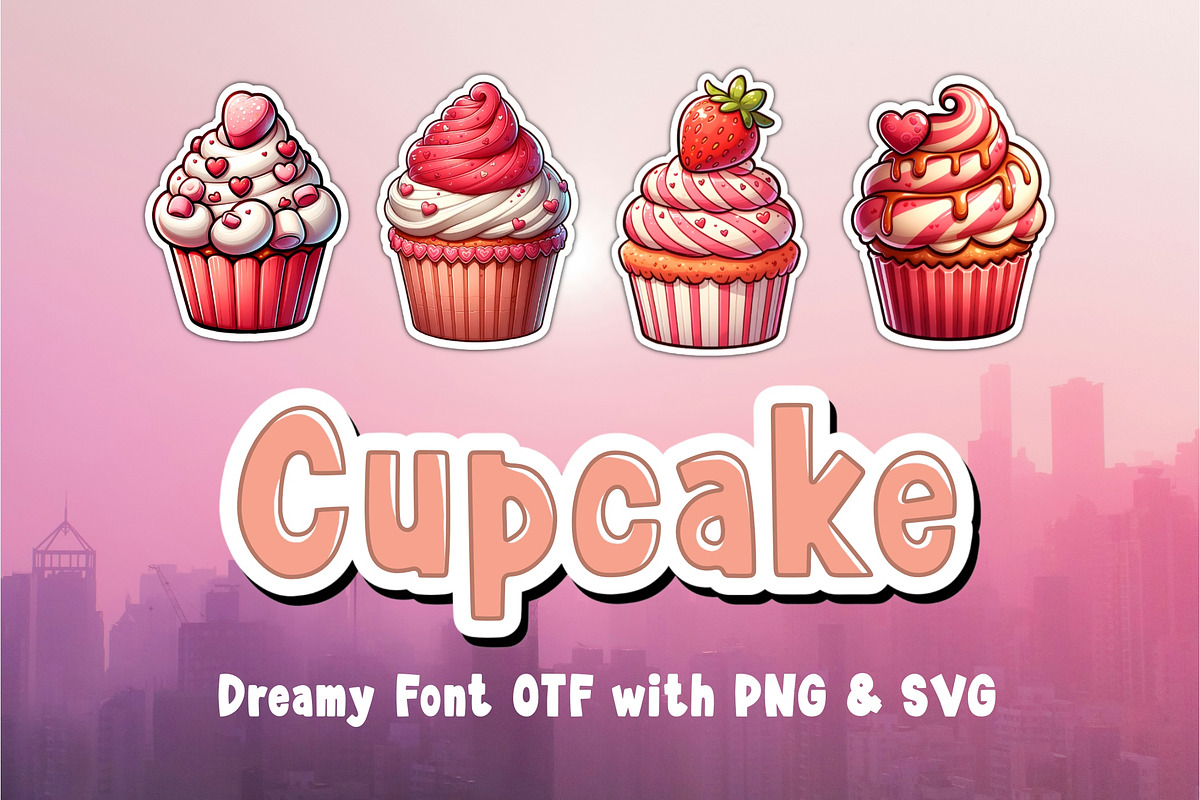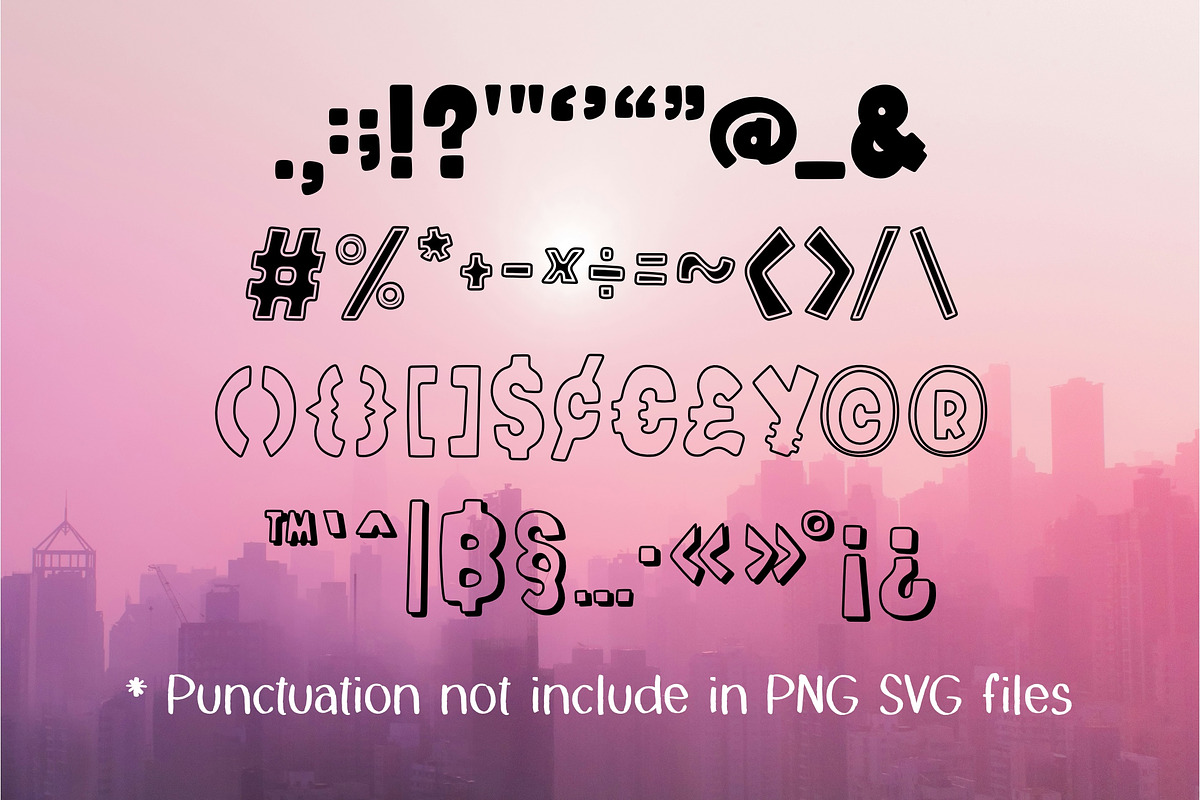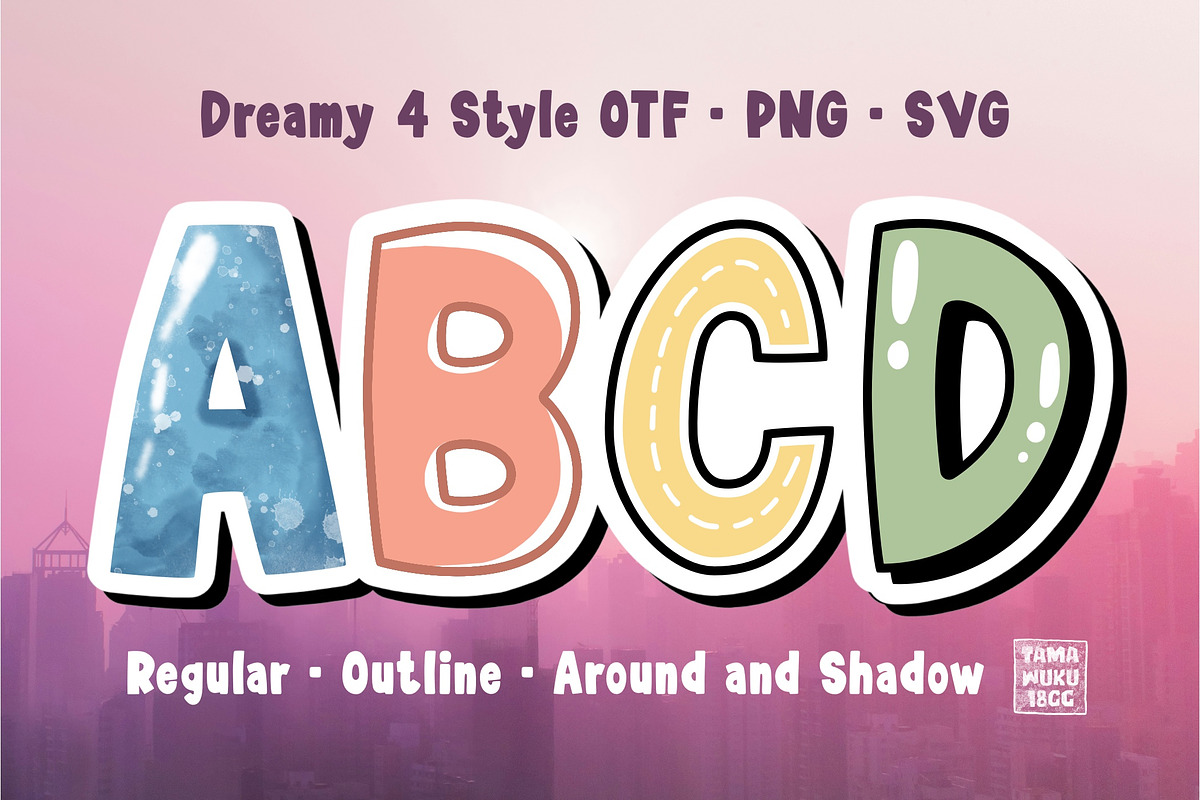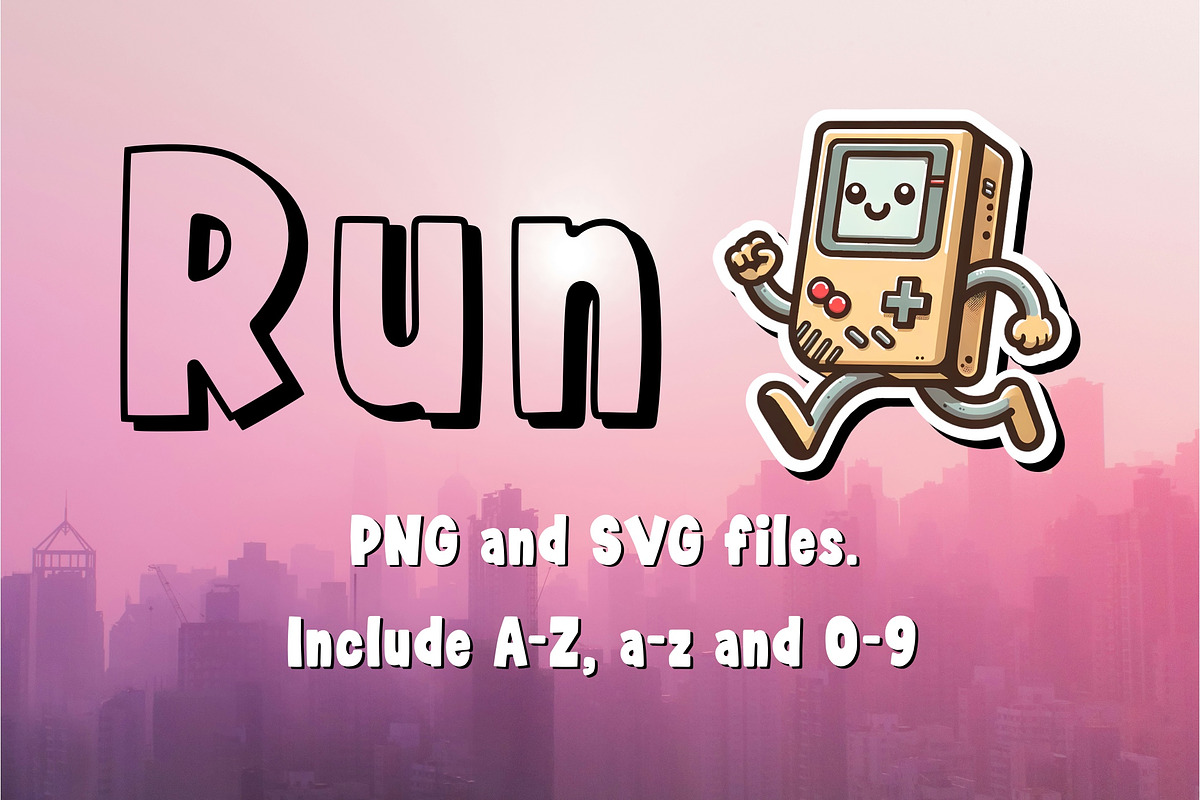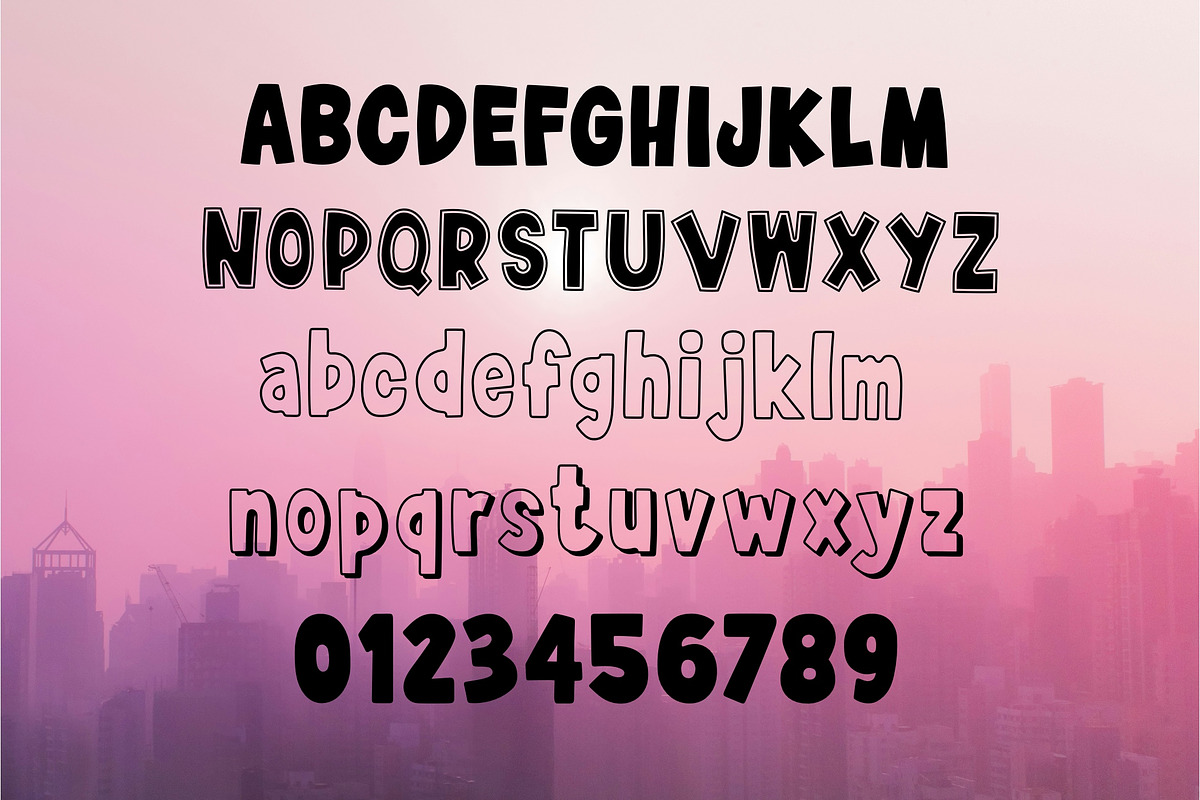
Dreamy OTF PNG SVG
Dreamy is a cool font. There are 4 styles : Regular, Outline, Around and Shadow. It’s perfect for any hippie design that needs a fun look and is guaranteed to make an impact. This font is the perfect fit for all of your logos, branding, social media, crafty DIY projects, and much more!